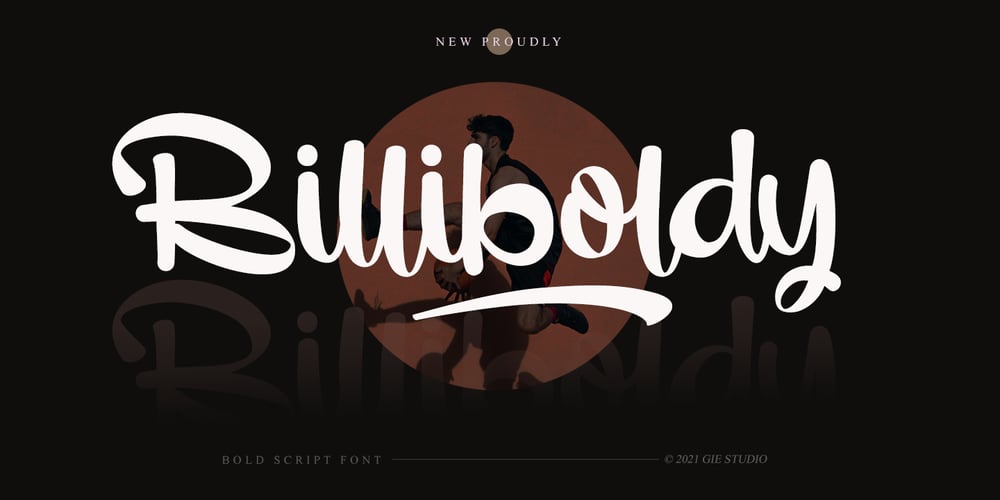
Billiboldy Font Family was designed by Gie Studio and published by Gie Studio. Billiboldy contains 1 styles and family package options. Are you planning to do an amazing piece of work to make lots of people smile happily while taking your hat off every time?If so, this is the right time to give your work a little touch with a sincere and elegant writing.Introducing Billiboldy- A New Bold Script FontBilliboldy is a cursive and thick lettered handwritten bold script font, crafted to give your headlines and logotype projects a stylish touch. This font reads as strong, dynamic and can add tons of nostalgic character to your designs.This font includes Multilingual Options to make your branding globally acceptable.Features:- Ligatures- Stylistic Sets- Multilingual Support- PUA Encoded- Numerals and Punctuation- Special underscore character 7 style- Special doodles for front and back of letters or sentencesThank you for your visit and downloading premium fonts from Gie Studio